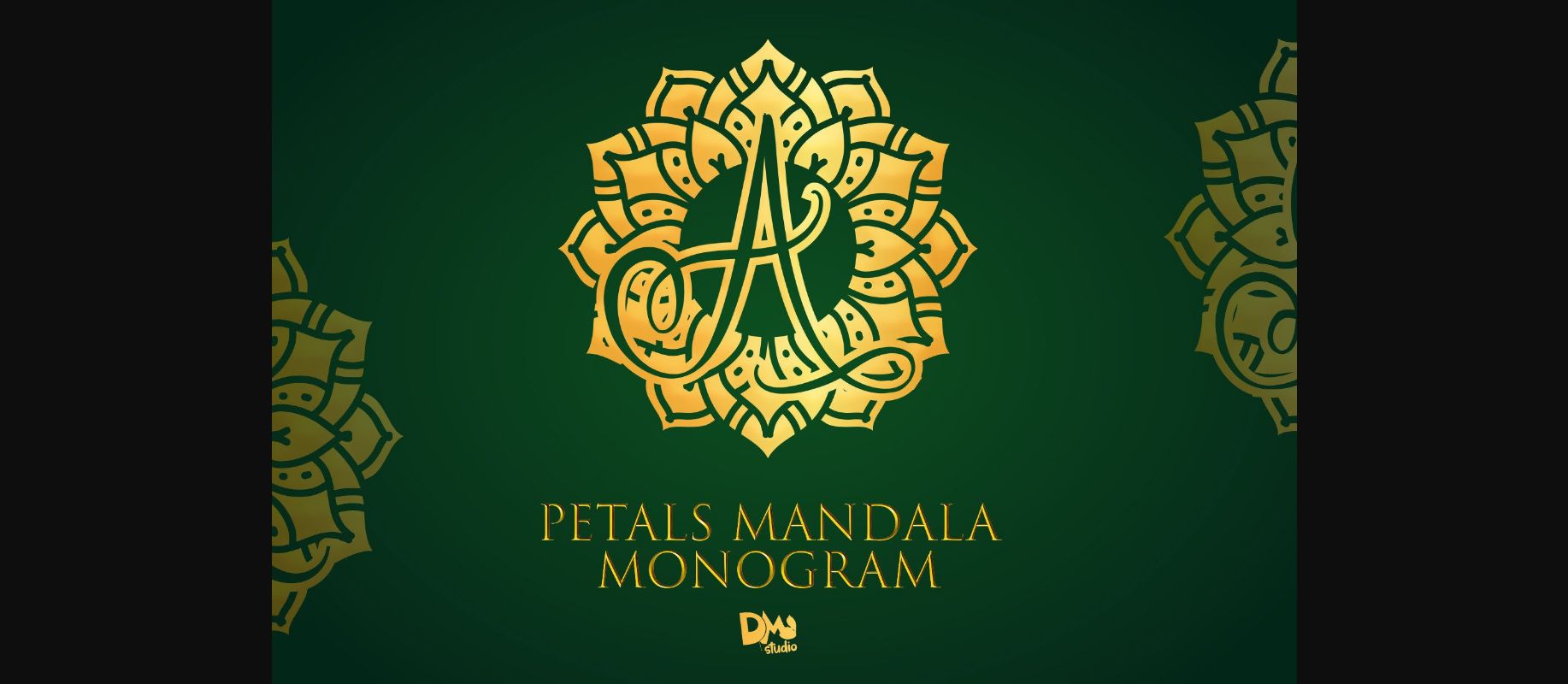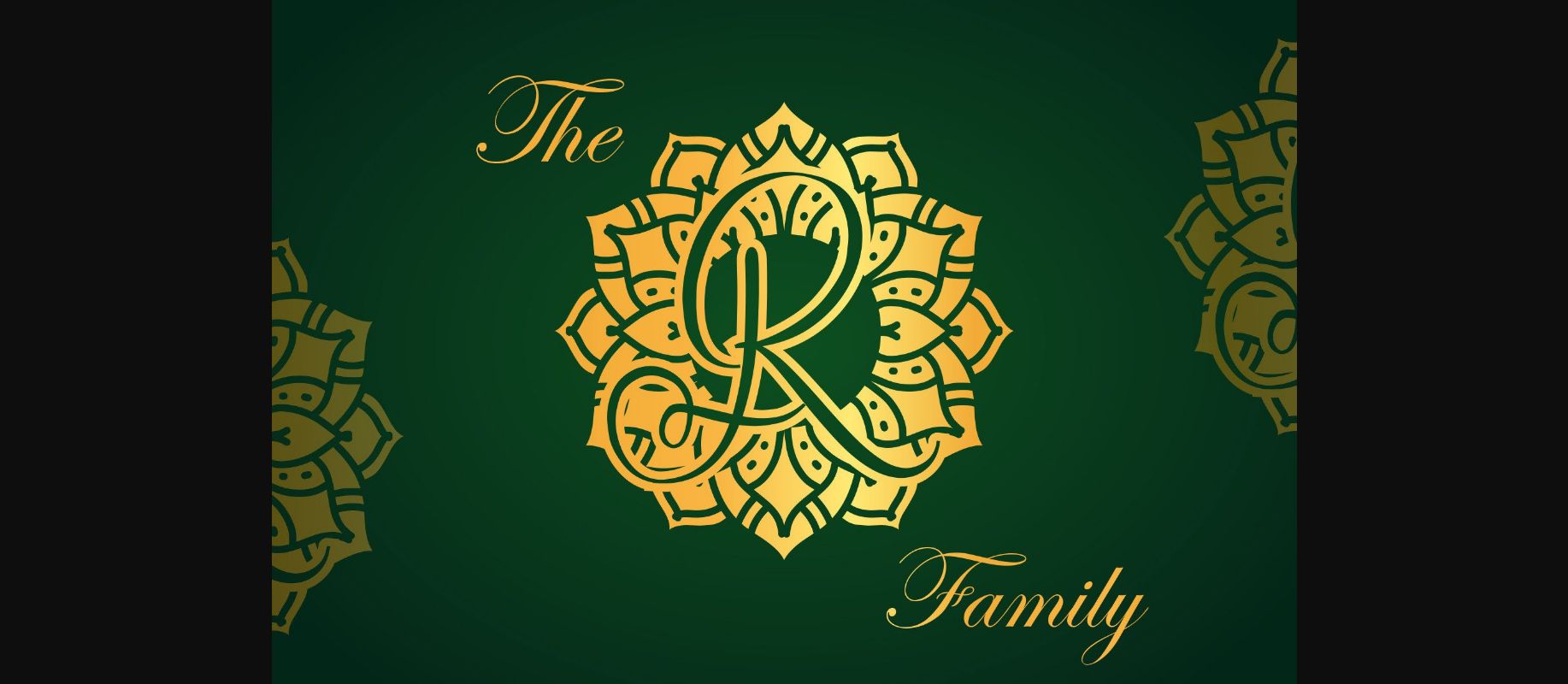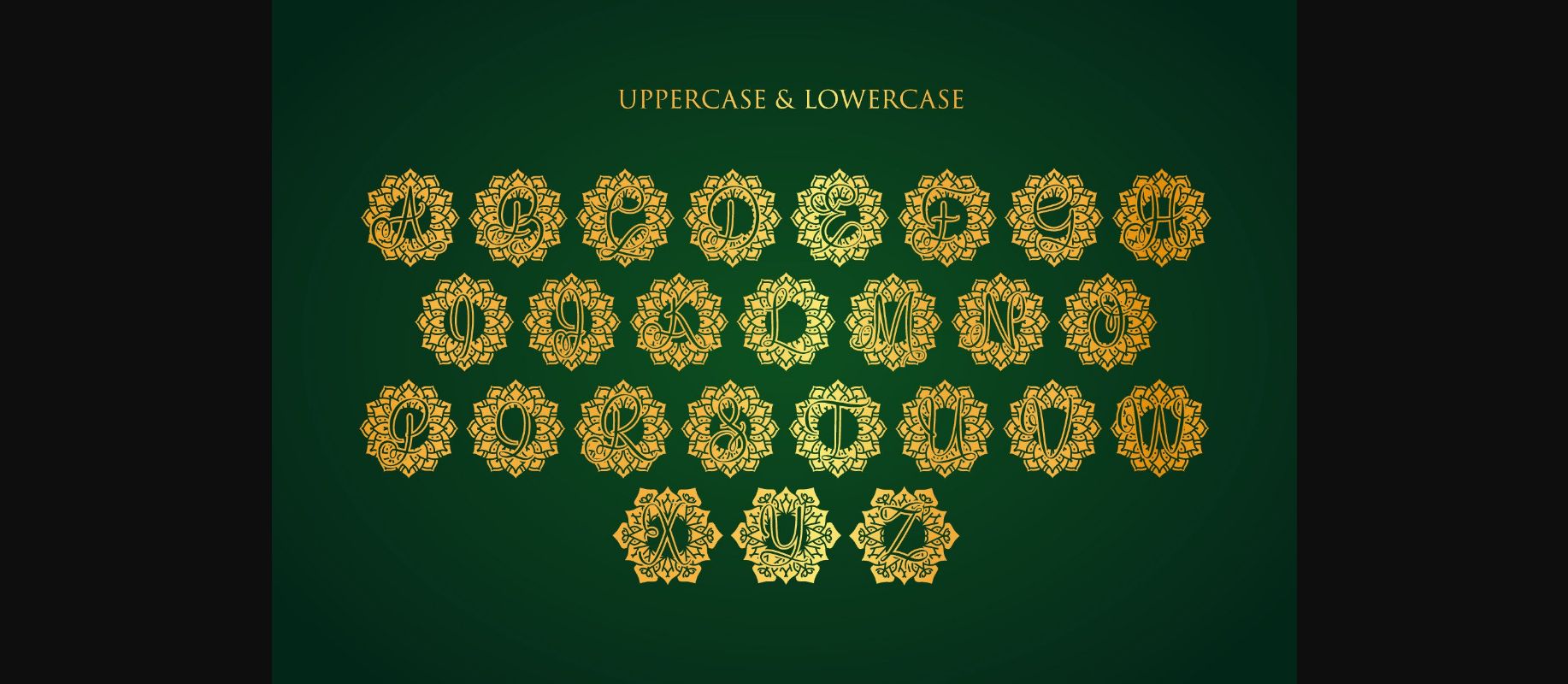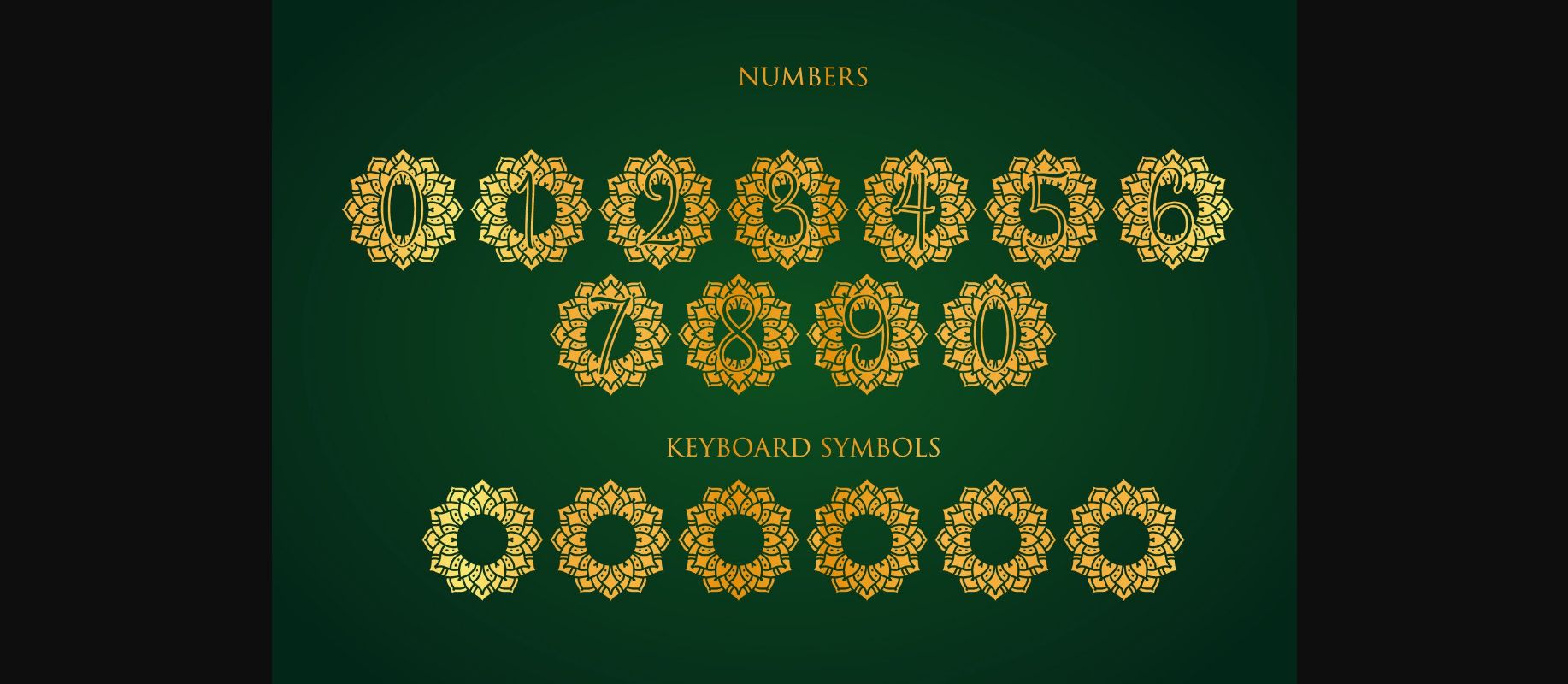
Petals Mandala Monogram Font
About Petals Mandala Monogram Font
Petals Mandala Monogram is a stylish and unique decorative font inspired by the elegance of mandala art. With its classy look, this font has the potential to elevate any creation.